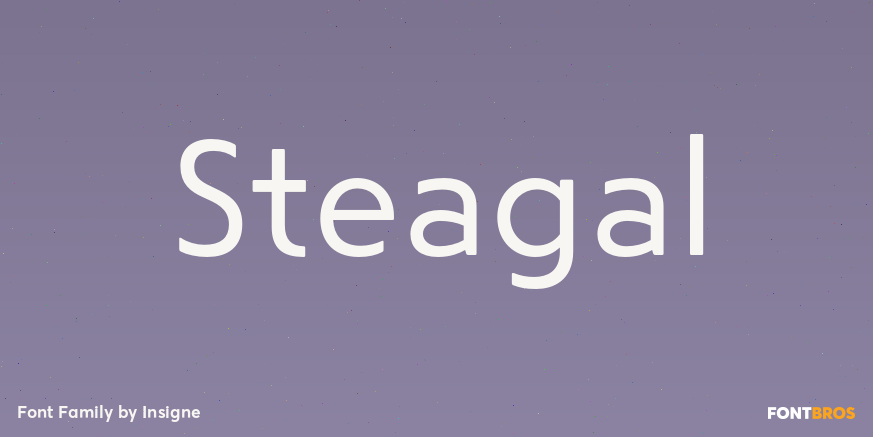
Steagal
I love geometric sans serifs, their crispness and rationality. Le Havre taps into this style, but for a while, I\’ve wanted to create a font recalling the printed Futura of the 1940s, which seems to have an elusive quality all its own. After seeing an…